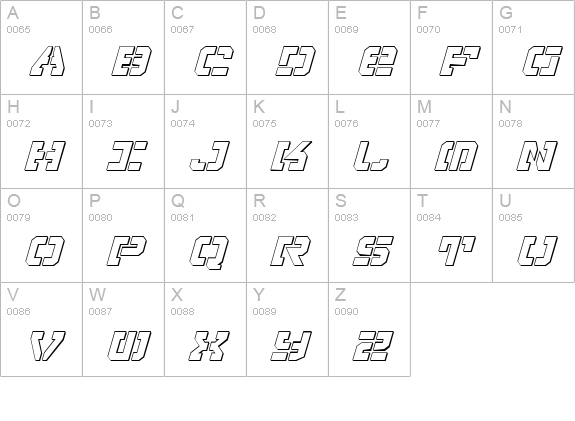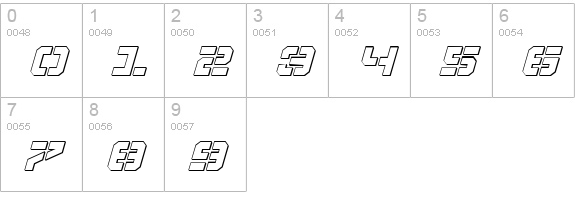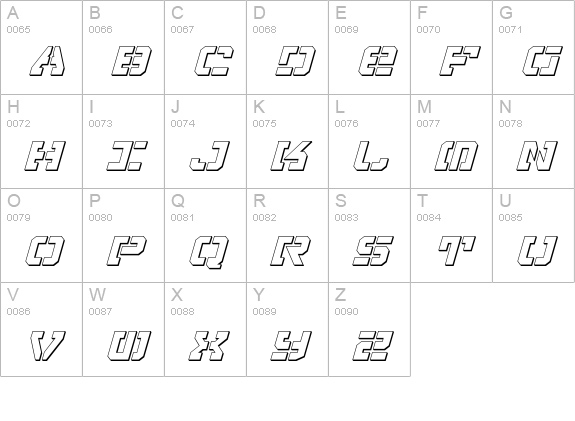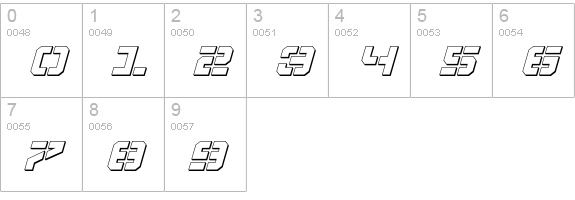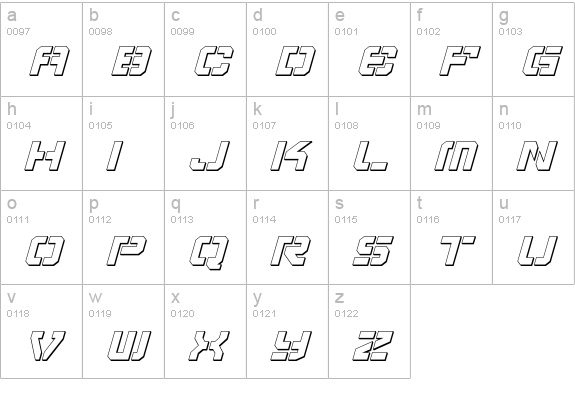
Vyper Shadow Italic is a distinctive, italic variant in the Vyper typeface family \xE2\x80\x94 well suited to design and typography projects.
Vyper Shadow Italic font is a sleek and modern typeface designed for those seeking a touch of elegance and sophistication in their designs. The italicized style adds a sense of movement and flair, making it perfect for projects that require a dynamic and stylish look. The sharp edges and clean lines of Vyper Shadow Italic give it a contemporary feel that is both eye-catching and versatile. This font is perfect for branding, logos, headlines, and any project where you want to make a strong visual impact. Whether you're designing a website, poster, or business card, Vyper Shadow Italic will add a touch of class and professionalism to your work. Best of all, Vyper Shadow Italic font is completely free to download at FontsMarket.com. This means you can enjoy the elegance and flair of this font without breaking the bank. Download Vyper Shadow Italic today and elevate your designs with its modern and stylish aesthetic.